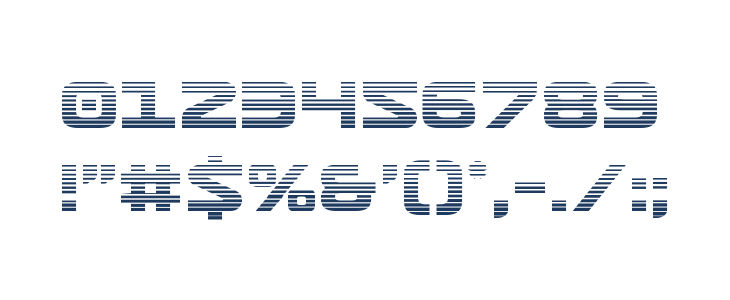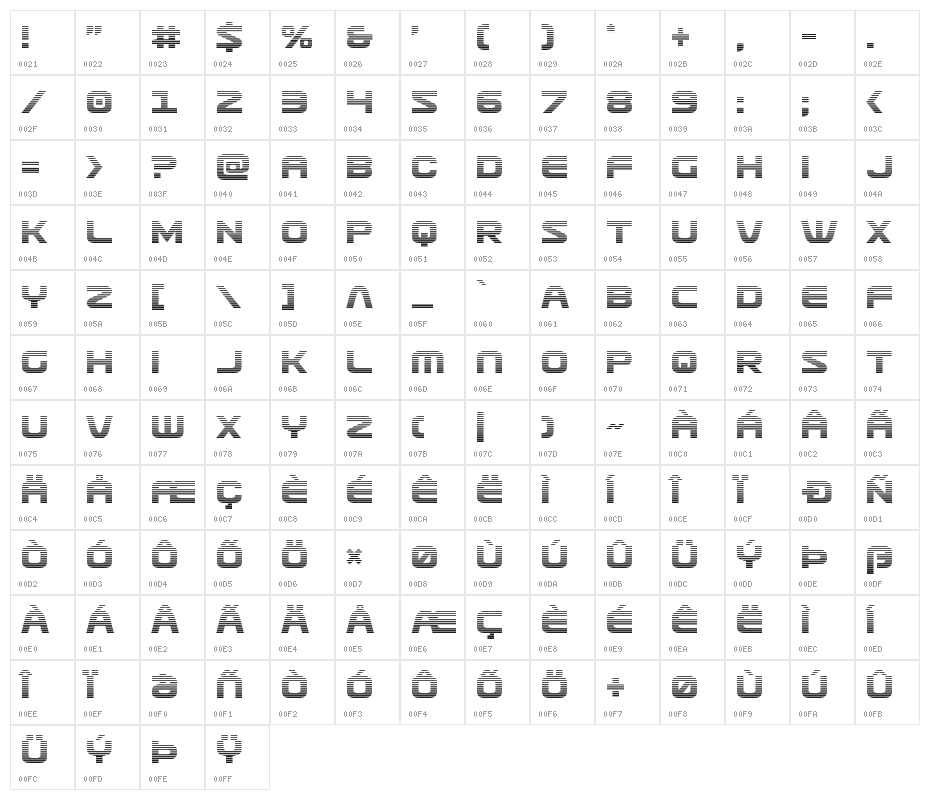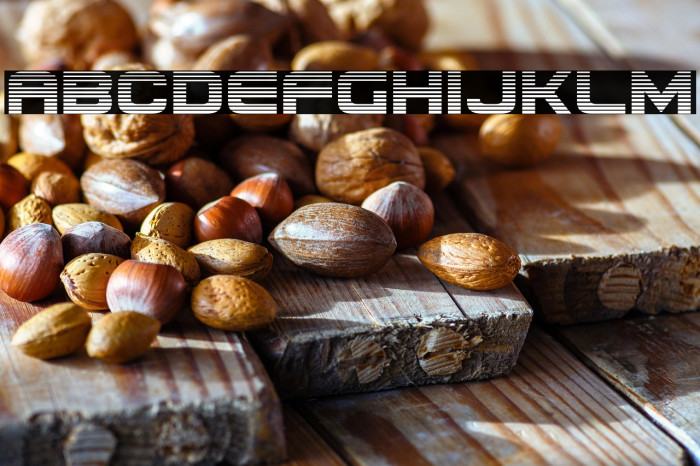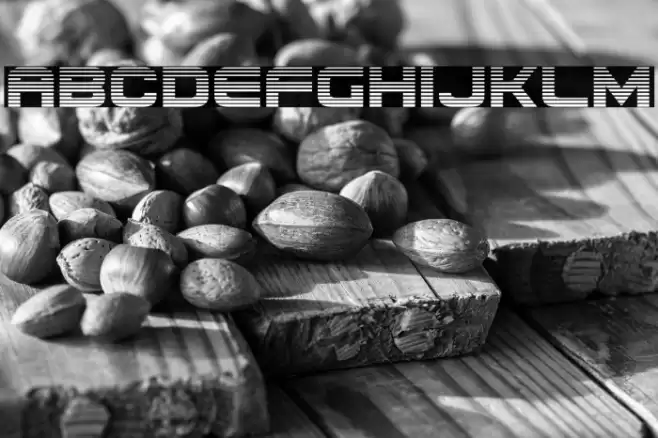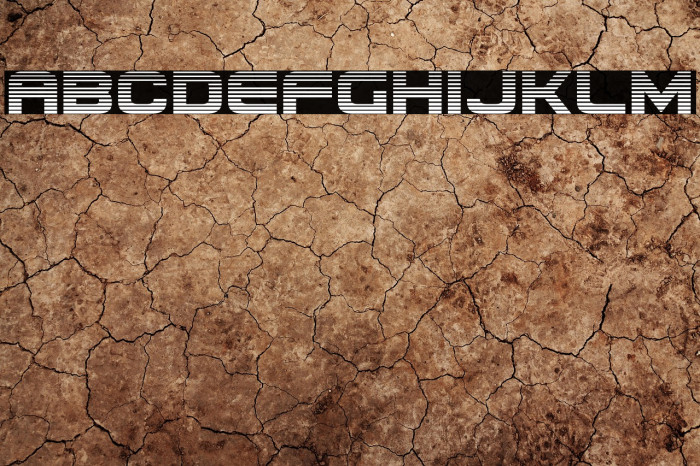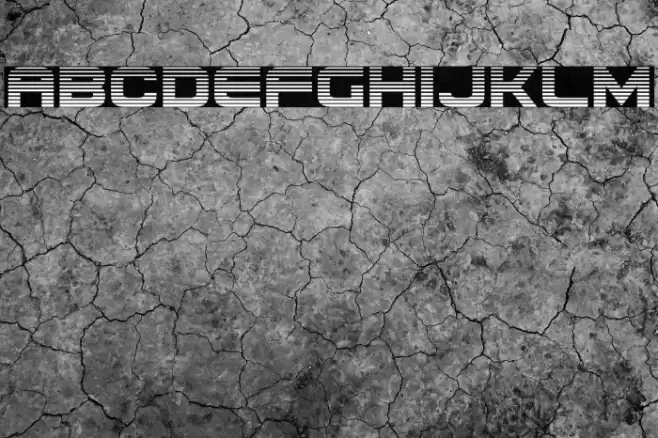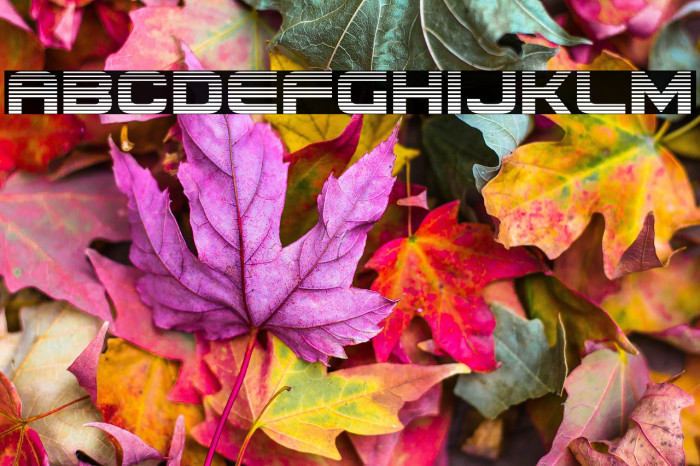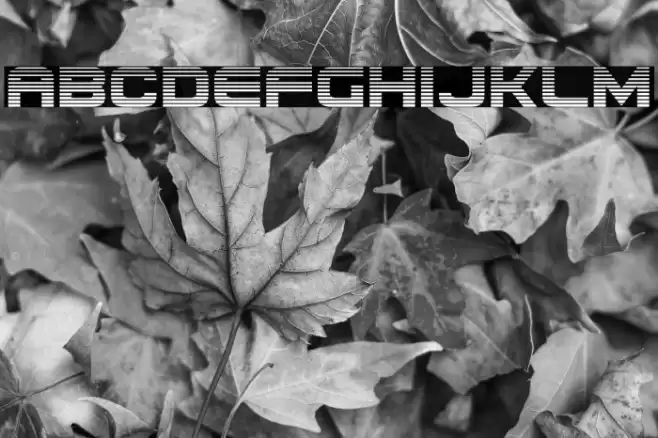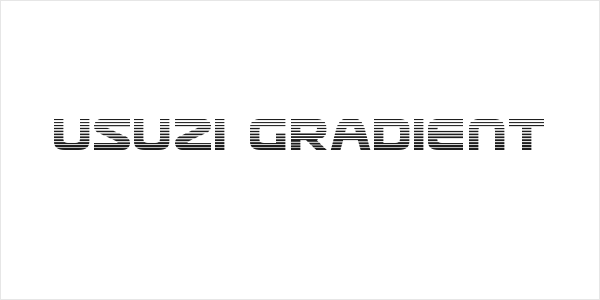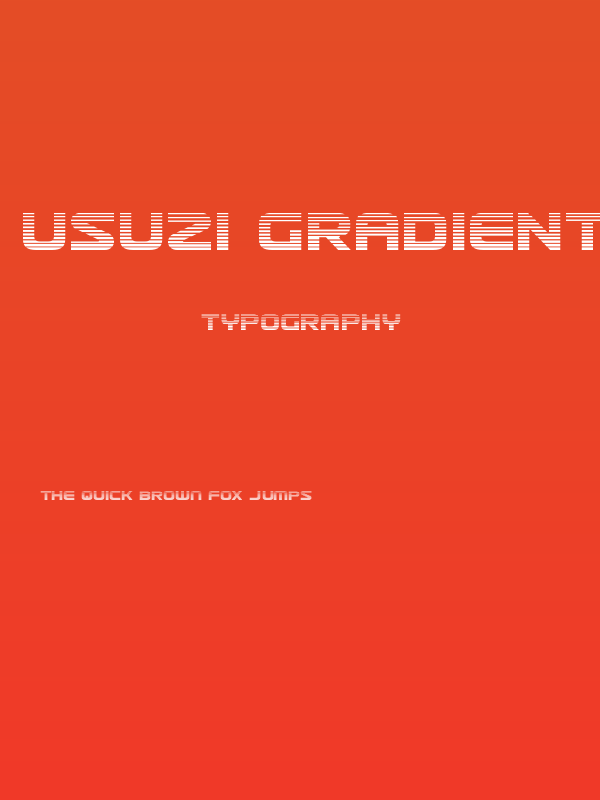
Usuzi Gradient Font
Usuzi Gradient Description
This font features a unique, futuristic design characterized by horizontal stripes that create a gradient effect across each character. The letters are bold and geometric, with a distinct digital aesthetic that suggests movement and speed. The uppercase and lowercase letters maintain a consistent style, with the numbers and special characters following suit. The striped pattern adds a dynamic visual interest, making it stand out in any design. This font is ideal for projects that require a modern and edgy look, such as technology-related branding or digital media.
| Overall Style | Futuristic, Digital |
| Proposed Projects | Ideal for technology branding, digital media, video game titles, and futuristic-themed designs. |